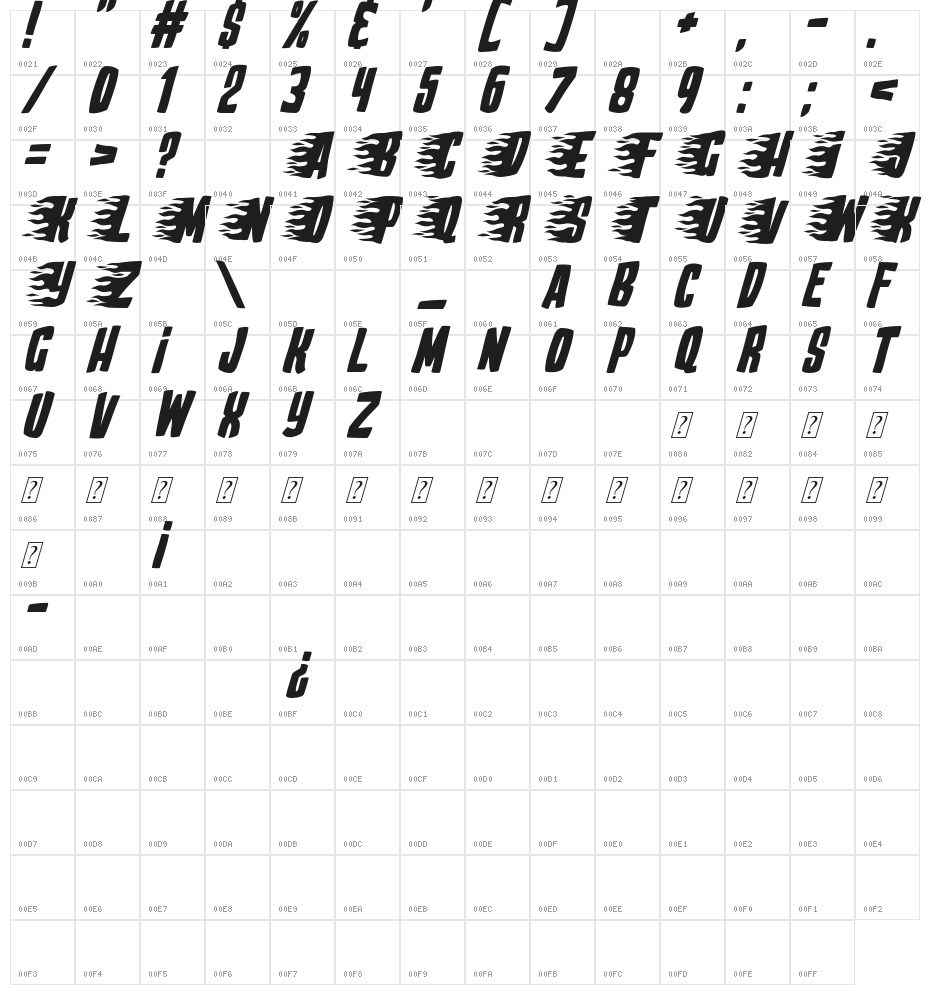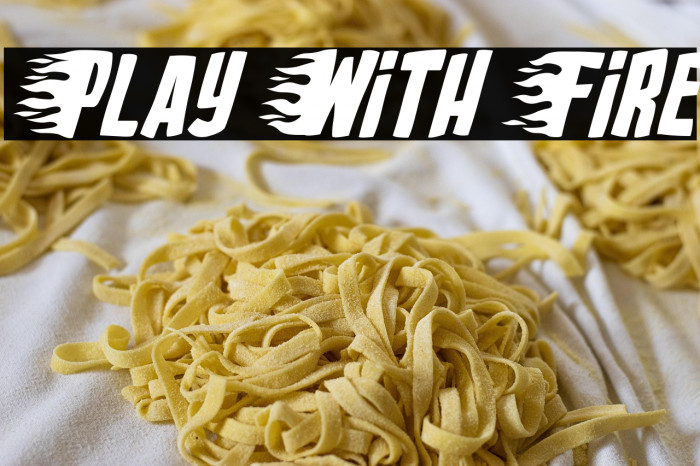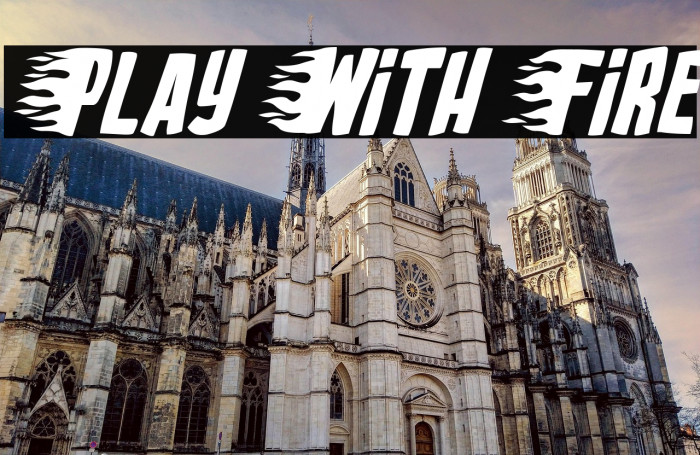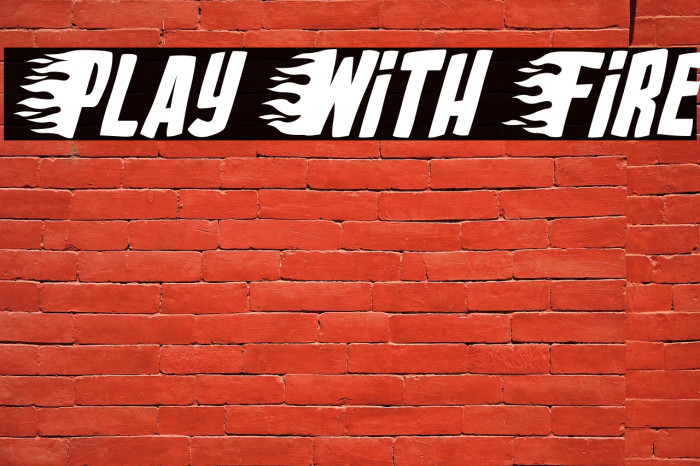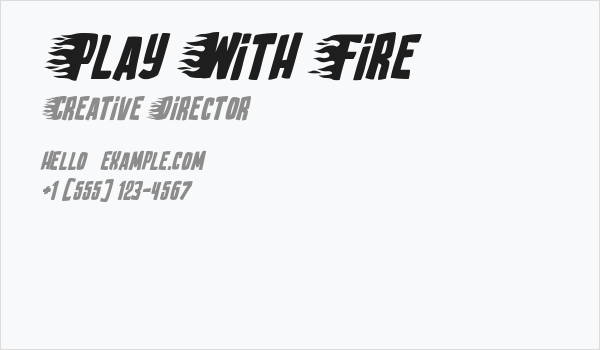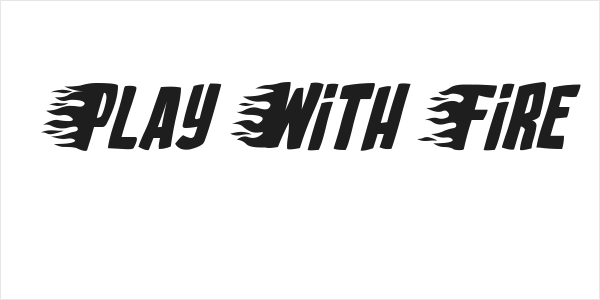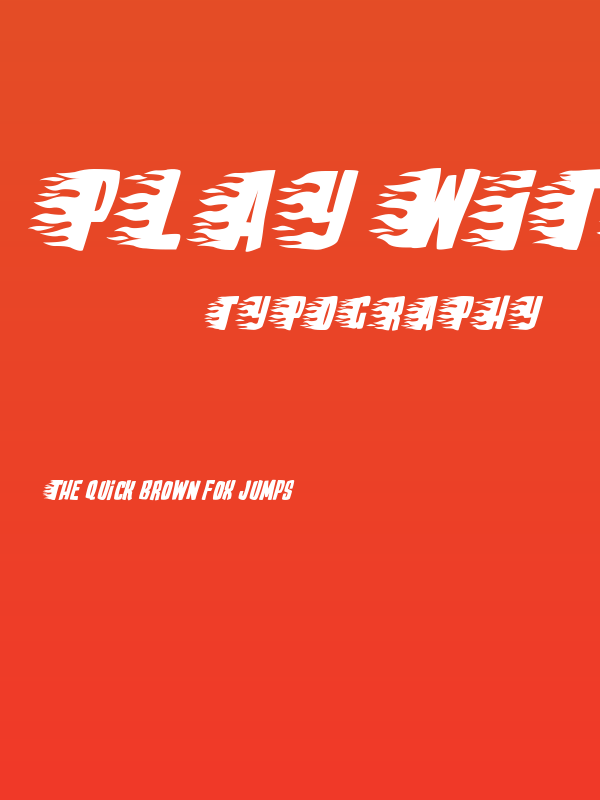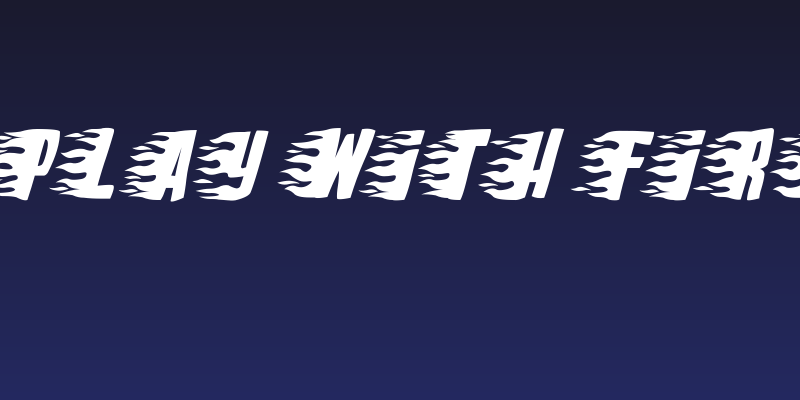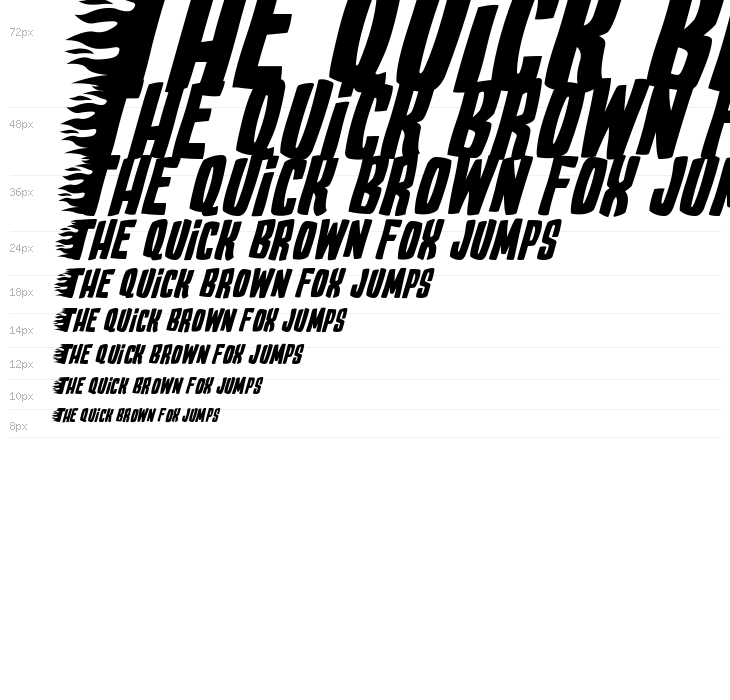
Play With Fire Font
Play With Fire Description
This dynamic and bold font features an energetic design with characters that appear to be in motion, as if they are being swept by flames. The uppercase letters are particularly striking, with sharp, angular edges and a sense of urgency. The lowercase letters maintain this energy, offering a cohesive look across the alphabet. Numbers and special characters are equally bold, ensuring consistency throughout. This font is perfect for projects that require a sense of action or excitement, such as sports branding, event posters, or dynamic logo designs. Its unique style captures attention and conveys a sense of speed and intensity.
| Proposed Projects | Ideal for sports branding, event posters, dynamic logos, and any project needing a sense of action. |